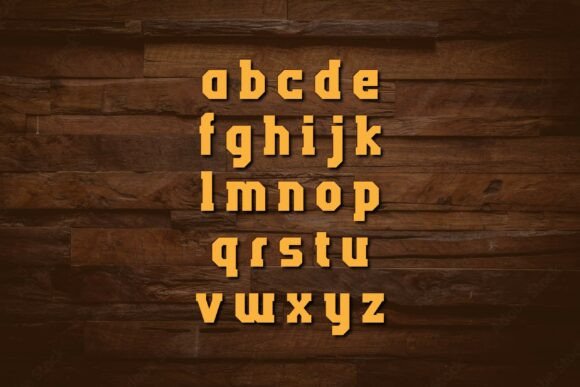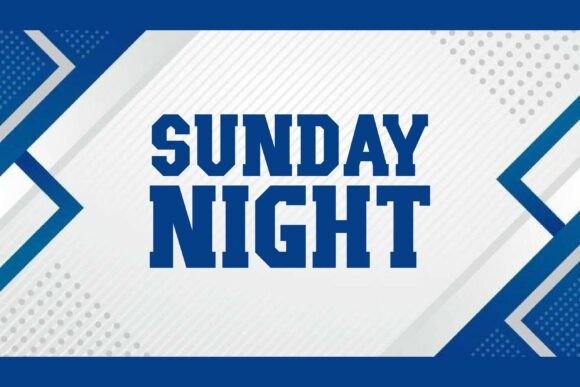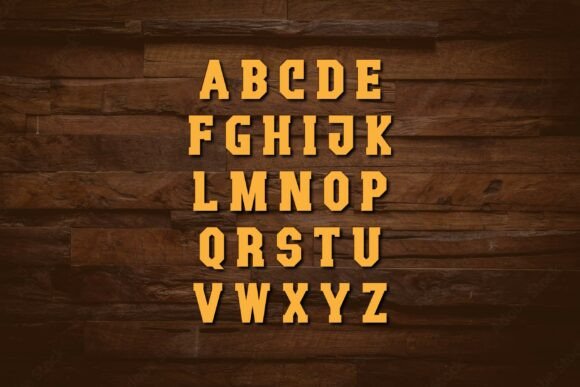
Introduction to Forest Foundry Font
As designers, we’ve all been there – staring at a blank canvas, trying to bring a creative project to life. The spark of inspiration hits, and suddenly, the perfect font appears in your mind’s eye. For those moments, you need a design resource that can elevate your vision and take it to new heights. Enter Forest Foundry Font – a stunning, Gothic-crafted display font that’s about to become your new best friend.
With its 96 finely detailed glyphs and 95 characters, Forest Foundry Font is the perfect companion for designers seeking to create captivating visuals that combine artistic flair with professional precision. Whether you’re working on a movie title, cartoon name, game title, or T-shirt design, this versatile font is sure to impress. Its elegant yet bold design brings a touch of sophistication to any project, making it a valuable addition to your design arsenal.
Key Features of Forest Foundry Font
- High-quality design resource ideal for creative projects, offering a unique and stylish aesthetic.
- Unique and creative design elements, making it a standout choice for designers seeking to add a touch of sophistication to their work.
- Perfect for use in various creative projects, including branding, advertising, and digital design.
Honest Review: Forest Foundry Font
I recently came across the Forest Foundry Font, a versatile design resource that has been making waves in the creative community. I was excited to dive in and see what it had to offer.
Here are some of the things that work well: ✨
- High-quality design: The Forest Foundry Font is crisp and clear, making it perfect for a variety of creative projects.
However, there are a few limitations to keep in mind: ⚠️
- Limited customization options: While the font is high-quality, there are limited customization options available, which may be a drawback for some designers.
- No bold or italic styles: The font is available in regular style only, which may not be suitable for projects that require bold or italic text.
Designing with Forest Foundry Font
Tips for Getting the Most Out of Forest Foundry Font
Experiment with different font sizes, colors, and combinations to achieve the desired look. You can also use Forest Foundry Font in conjunction with other design resources to create a unique and captivating design.
Common Use Cases for Forest Foundry Font
Forest Foundry Font is suitable for various creative projects, including branding, marketing materials, and digital art. Its versatility and high-quality design make it an excellent choice for designers seeking a distinctive touch.